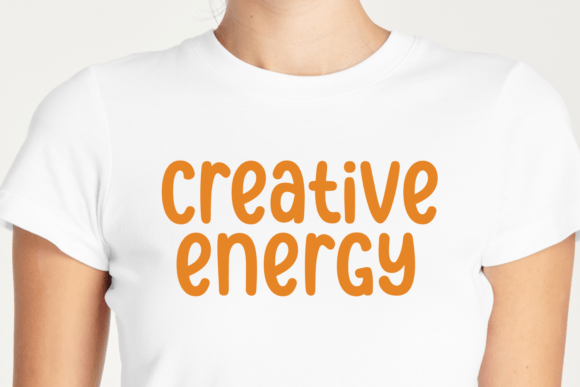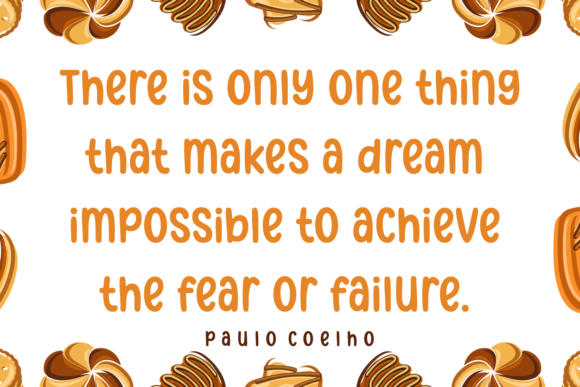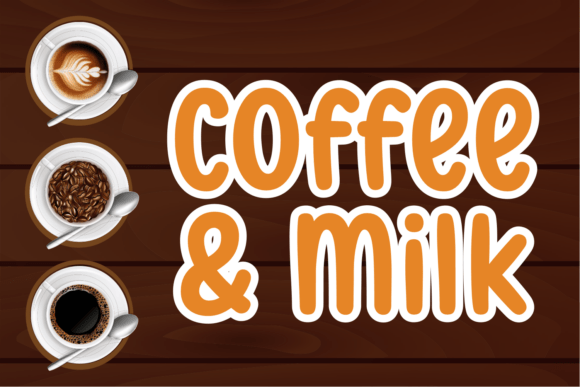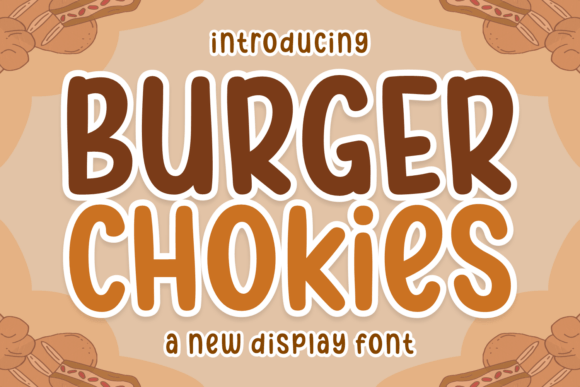
The Ultimate Guide to Burger Chokies Font: Elevate Your Designs with a Friendly Twist
I’ll never forget the time I was working on a branding project for a trendy new cafe. I had the logo concept nailed, but I just couldn’t find the right font to complement it. The client wanted something fun, friendly, and Instagram-worthy. That’s when I stumbled upon Burger Chokies, and it was love at first sight! 💕
This fun display font has been a game-changer for my design projects, and I’m excited to share its awesomeness with you. In this article, we’ll dive into the world of Burger Chokies, exploring its features, uses, and some helpful tips and tricks.
An Honest Review of Burger Chokies
So, what makes Burger Chokies so special? Let’s break it down:
- ✨ Friendly and approachable vibe: Perfect for designs that need a playful touch.
- ✅ Cute characters: Each letter is carefully crafted to bring a smile to your face.
- 💯 High versatility: Works amazingly well on various design projects, from branding and headings to T-shirts and invitations.
Now, no font is perfect, and Burger Chokies has a few minor quirks:
- 🤔 Limited suitability for body text: This font shines in display settings, but might not be the best choice for longer paragraphs.
- ⚠️ Occasional kerning issues: As with any font, you might need to adjust kerning for optimal results.
- Experiment with OpenType features, such as glyphs and stylistic alternates, to add some extra flair.
The Story Behind Burger Chokies
Legend has it that Burger Chokies was created by a designer who wanted to bottle up the fun and playfulness of childhood memories. Inspired by vintage fast food joints and colorful advertisements, this font was born to bring a smile to people’s faces. Whether that’s true or not, one thing’s for sure – Burger Chokies has captured the hearts of designers and crafters worldwide!
| Font Name | Burger Chokies Font |
| Author | Eightde |
| What type of designs is Burger Chokies best suited for? | Burger Chokies excels in display settings, making it perfect for branding, headings, T-shirts, invitations, and more. |
| Is Burger Chokies available in different weights or styles? | Currently, Burger Chokies comes in a single style, but its versatility and range of OpenType features make it adaptable to various design needs. |